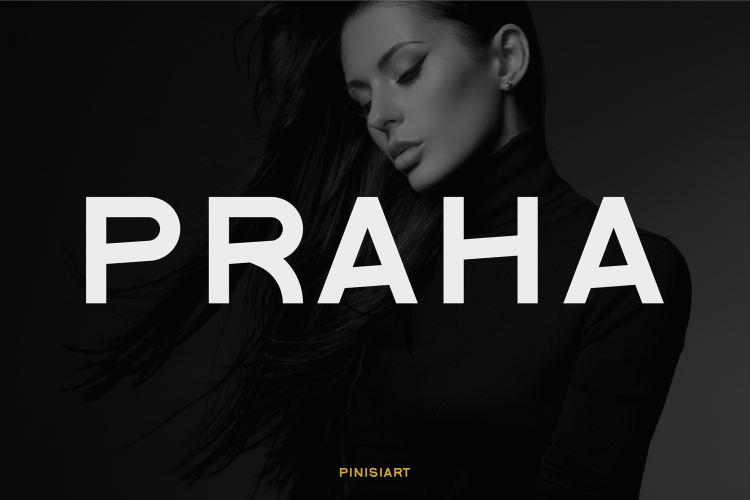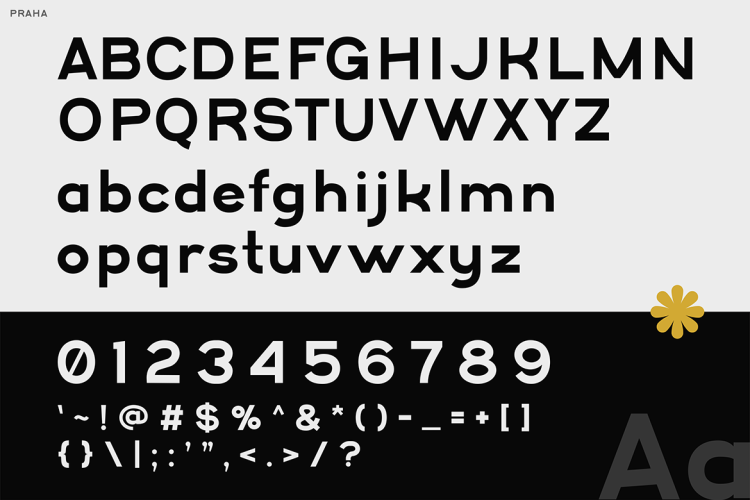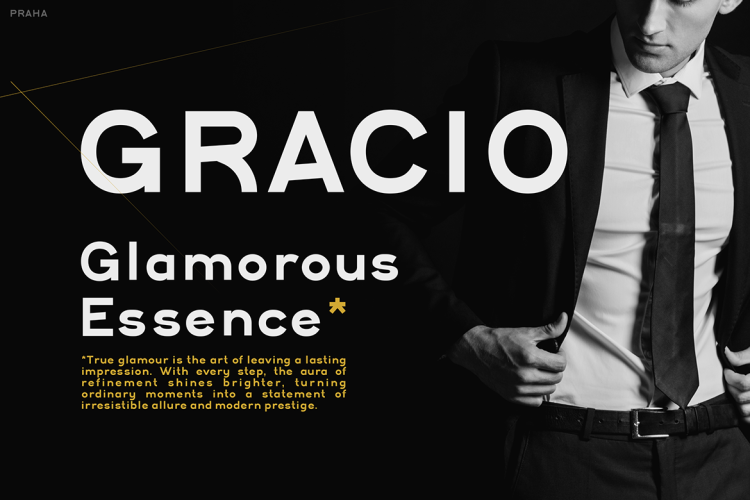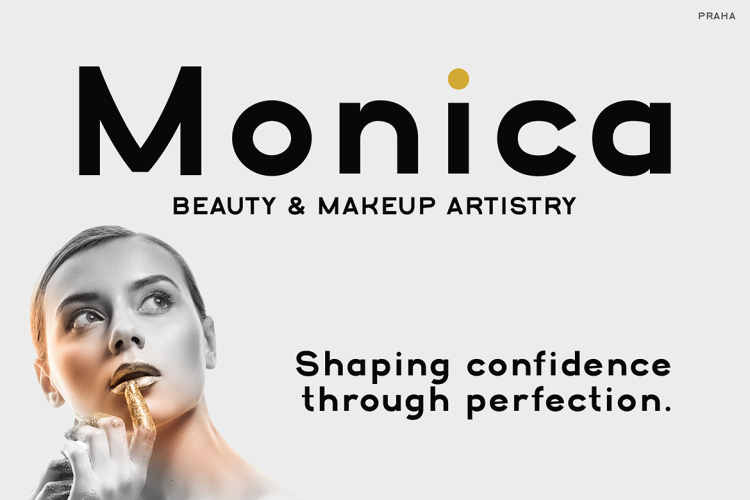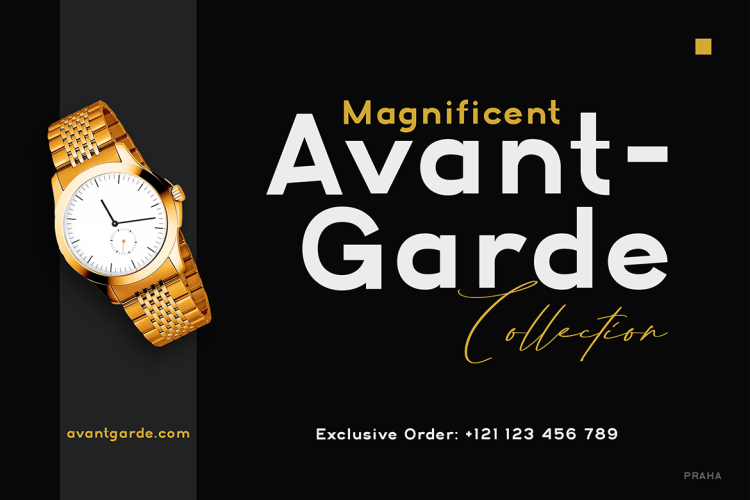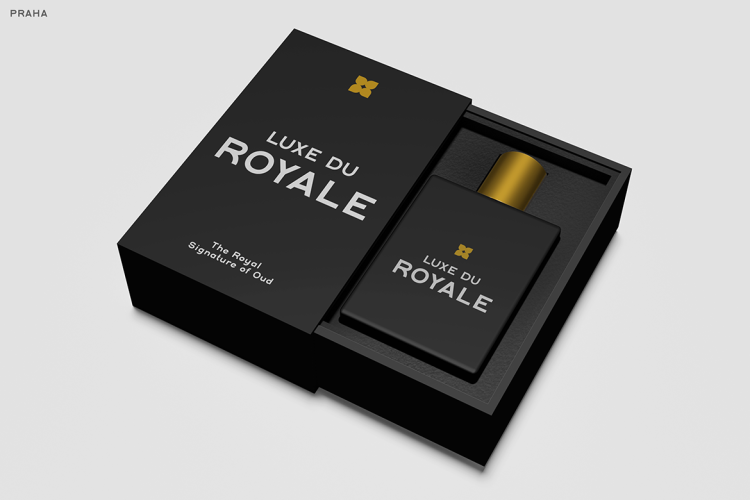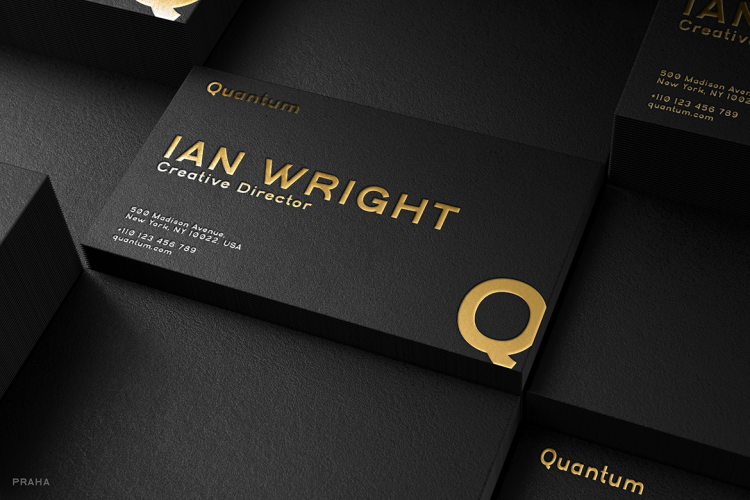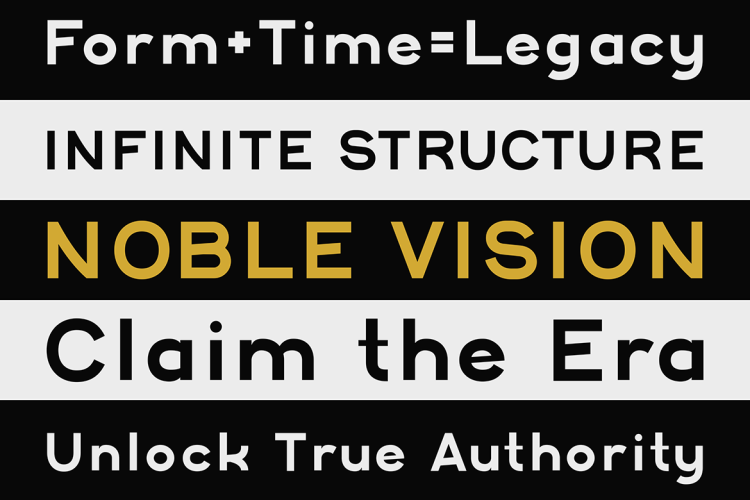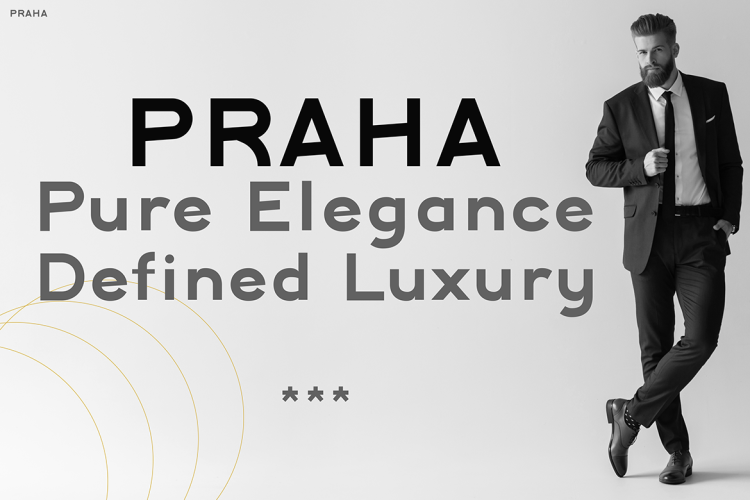
Pure Elegance Meets Modern Functionality
Instagram Font PRAHA is more than just a typefaceโitโs a statement of luxury, modernity, and timeless style. Designed with sleek lines, balanced proportions, and a touch of European sophistication, PRAHA captures the essence of minimal elegance while staying versatile for multiple design needs. What makes this font unique is its ability to look both bold and refined, making it a powerful choice for branding, high-end packaging, social media posts, and editorial layouts. Each letterform reflects precision and confidence, giving your projects a polished, professional aesthetic that instantly elevates any visual composition. Whether youโre aiming for stylish Instagram graphics, chic product branding, or impactful advertising, this font provides the perfect balance between beauty and clarity.
Who Can Use Instagram Font PRAHA?
Instagram Font PRAHA is an excellent choice for creative professionals, entrepreneurs, and businesses that want to stand out. Itโs particularly ideal for:
Fashion brands seeking a clean yet luxurious typeface for campaigns and product catalogs.
Beauty and lifestyle creators who need a sleek font for Instagram posts, stories, and branding.
Design agencies looking for a versatile font that works across multiple mediums from digital to print.
Luxury product packaging such as watches, perfumes, or premium cosmetics, where typography is just as important as the product itself.
Corporate consultants and coaches who want to express authority and professionalism with a modern, sophisticated look.
This versatility makes PRAHA not just a font, but a valuable design tool that adapts effortlessly to different industries and creative visions.
If youโre searching for a typeface that blends timeless elegance with modern impact, Instagram Font PRAHA is the perfect fit. Itโs not just about textโitโs about creating an unforgettable impression with every word you display. Bring sophistication, clarity, and confidence into your projects with this stunning font. Elevate your brand, inspire your audience, and let PRAHA become the visual voice that defines your unique style. Donโt miss the chance to own a font that truly speaks luxury and creativity in every letter.